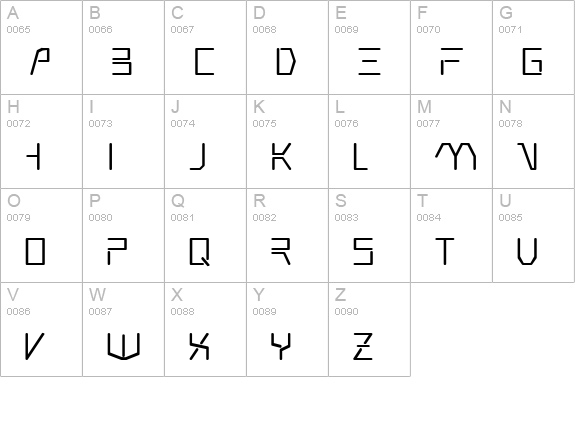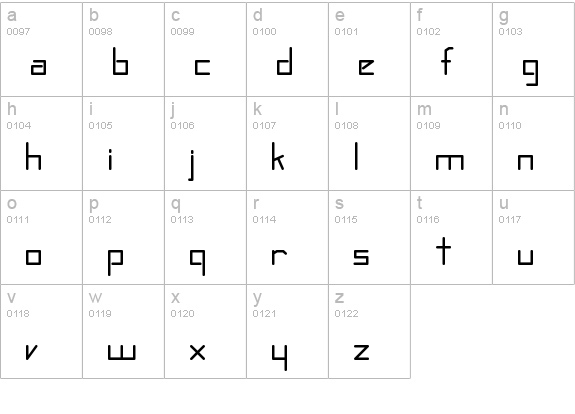
RoboType Regular Font Details
RoboType Regular is the standard, neutral variant in the RoboType typeface family \xE2\x80\x94 well suited to general body text, paragraphs, and standard typographic work.
RoboType Regular font is a sleek and modern typeface that exudes a sense of innovation and sophistication. With its clean lines and geometric shapes, this font is ideal for creating a professional and polished look in any design project. The balanced proportions and sharp edges of RoboType Regular make it perfect for headlines, logos, branding, and more. What sets RoboType Regular apart is that it is available for free download at FontsMarket.com. This means that you can easily access this versatile font and incorporate it into your designs without any cost. Whether you are a designer, student, or hobbyist, RoboType Regular offers a high-quality option that will elevate your projects to the next level. Download RoboType Regular today and add a touch of modern elegance to your work.